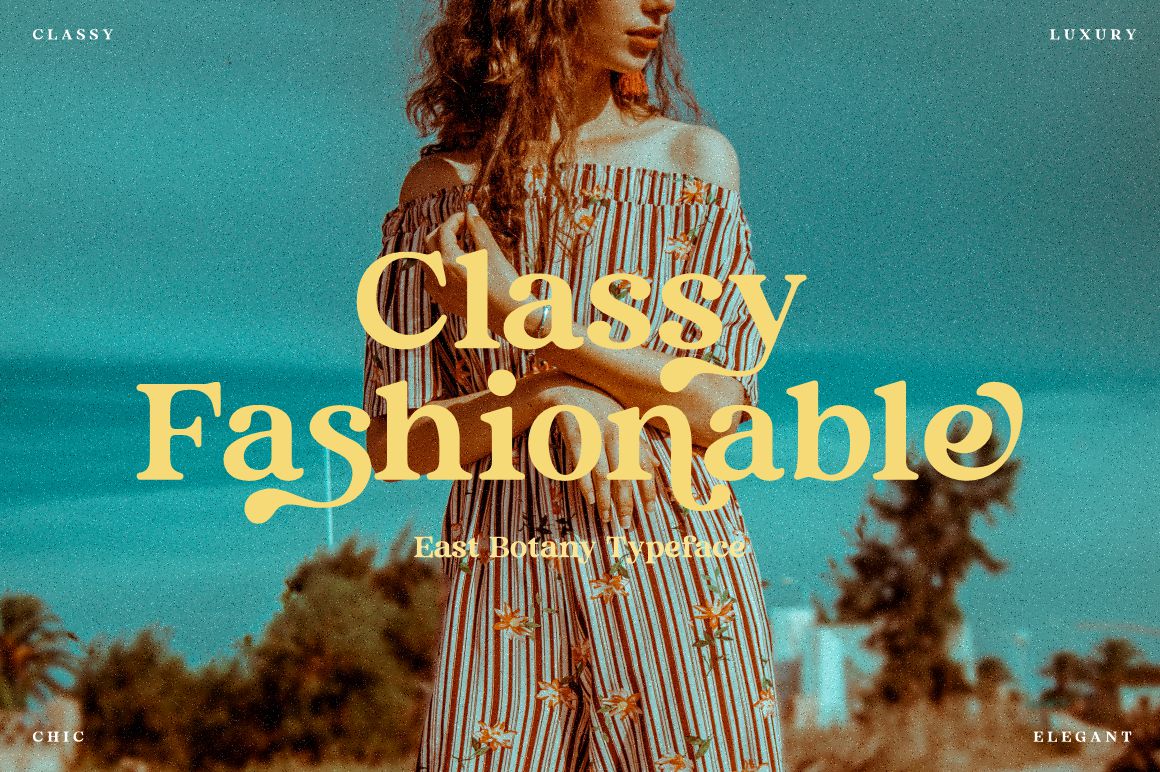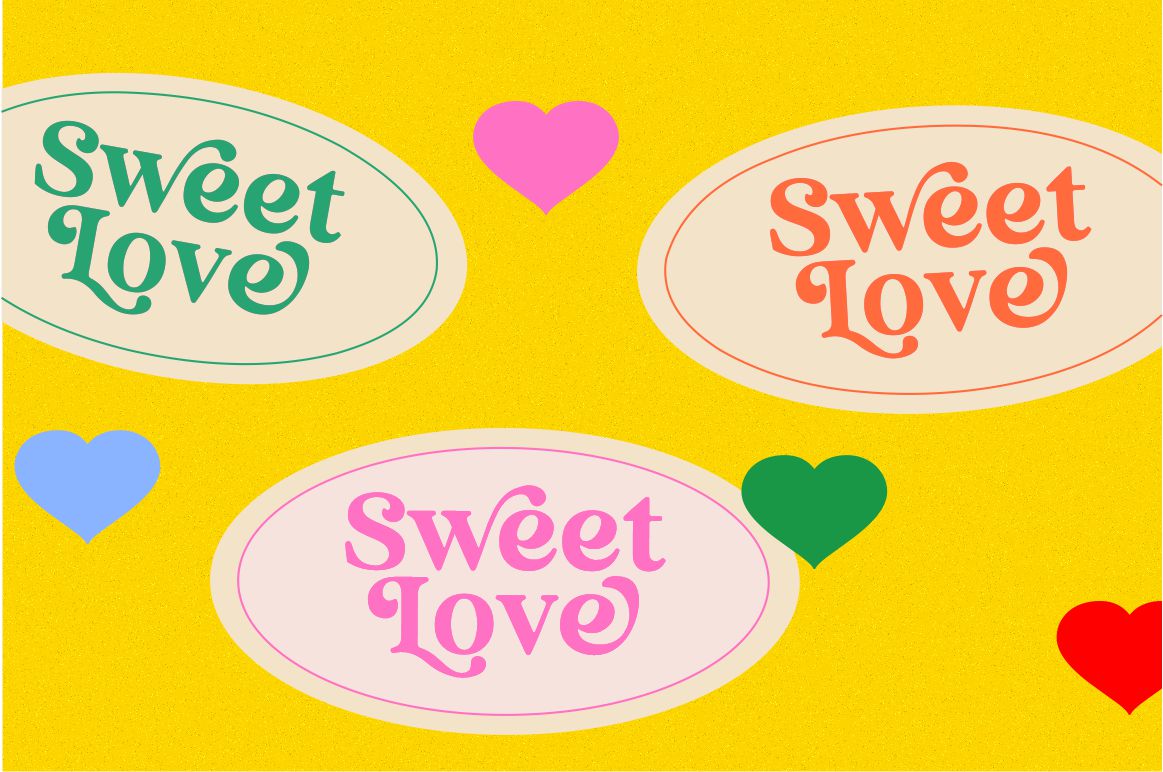
East Botany - Display Serif Font
Say Hi to East Botany. A new bold and stylish font with modern, groovy and retro look. It comes with large selection of alternate glyphs to give your any project to a unique design.
East Botany is perfect for luxury logo and branding, classy editorial design, woman magazine, cosmetic brand, fashion promotional, blog design, modern advertising design, card invitation, art quote, book/cover title, and modern and more.
· Alternates and Ligatures